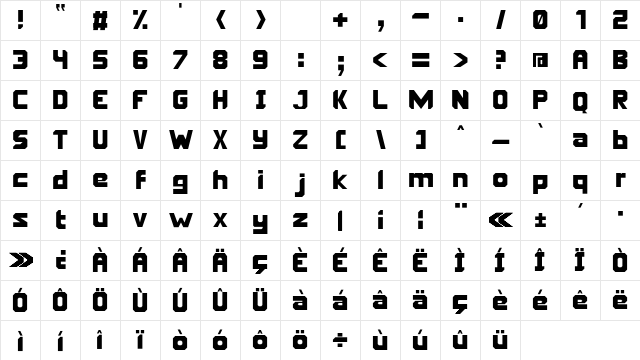
Oriema Regular
Design Context for Oriema Typeface
Oriema offers clean, dependable letterforms without strong stylistic allegiance, making it a practical choice for designers who need flexibility.